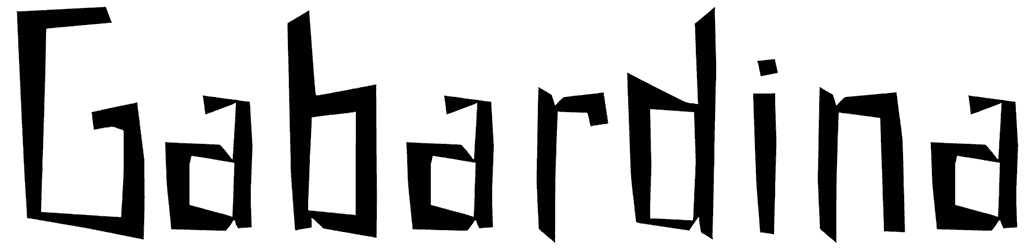
Gabardina Font
Gabardina is likely to remind Agatha Christie’s stories. Its mysterious classic design might induce us to look at the font family meticulously. About other properties of the font, it can be urban and informal. So casual…
Gabardina is likely to remind Agatha Christie’s stories. Its mysterious classic design might induce us to look at the font family meticulously. About other properties of the font, it can be urban and informal. So casual clothes, especially the trend among teenagers, may be designed by the font.
The silly font can be used for computer games, mockups, flyers, shirts, detective movie titles and book covers, labels, and all kinds of attention-grabber projects.
Gabardina es una font distorsionada de lineas rectas que puedes usar en carteles, posters y logotipos. Tiene funciones OpenType con números y ligaduras. http://defharo.com/fonts/descargar-fuentes-gratis/